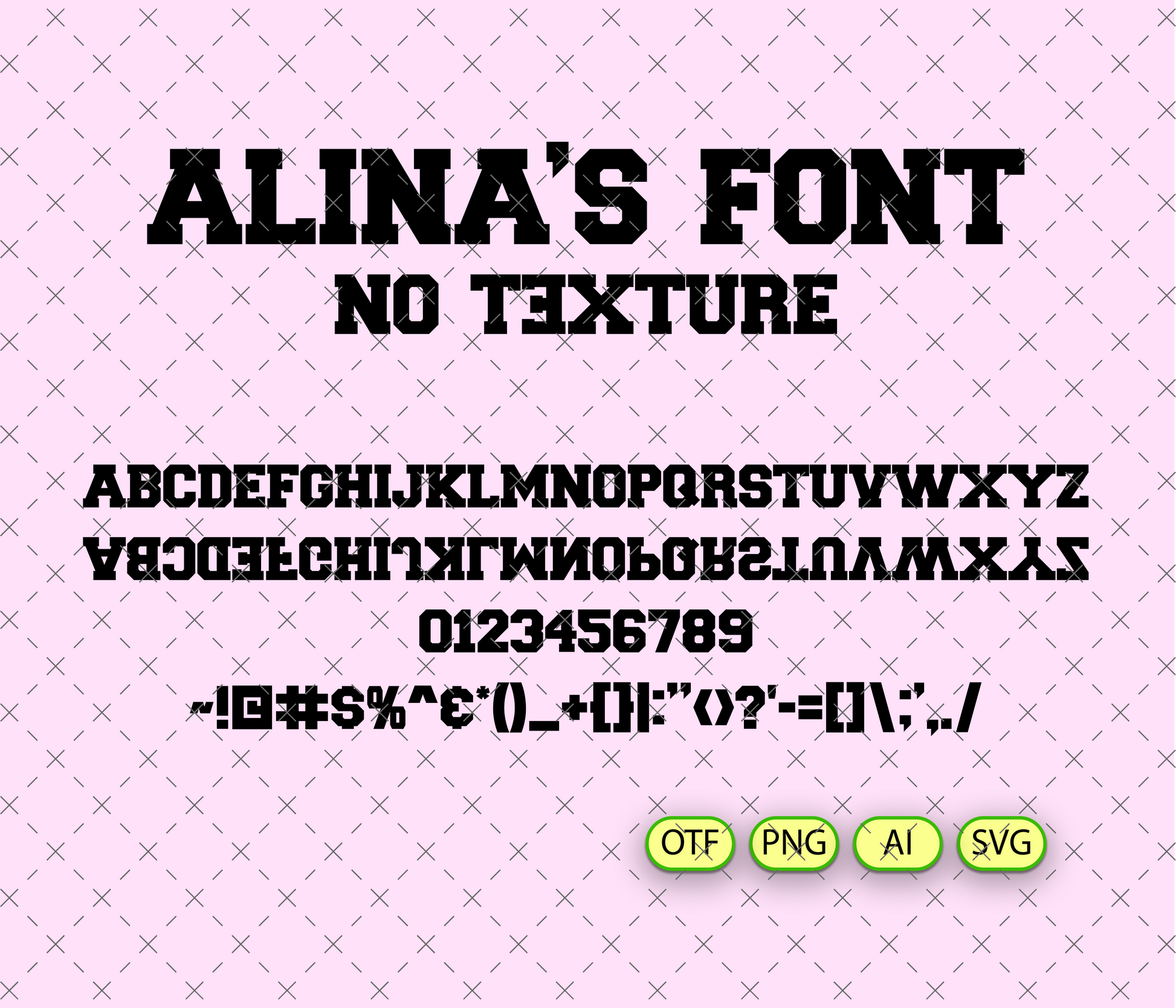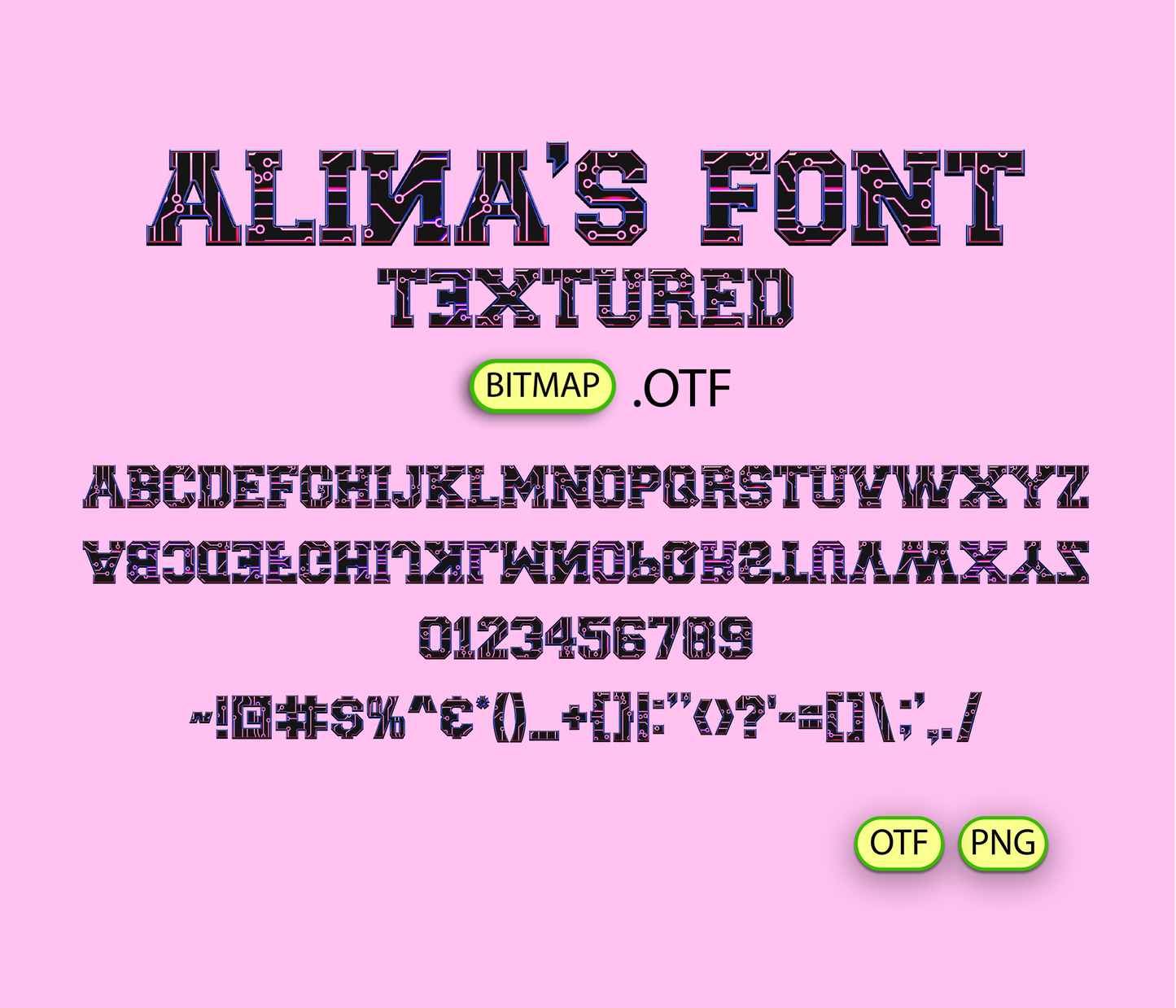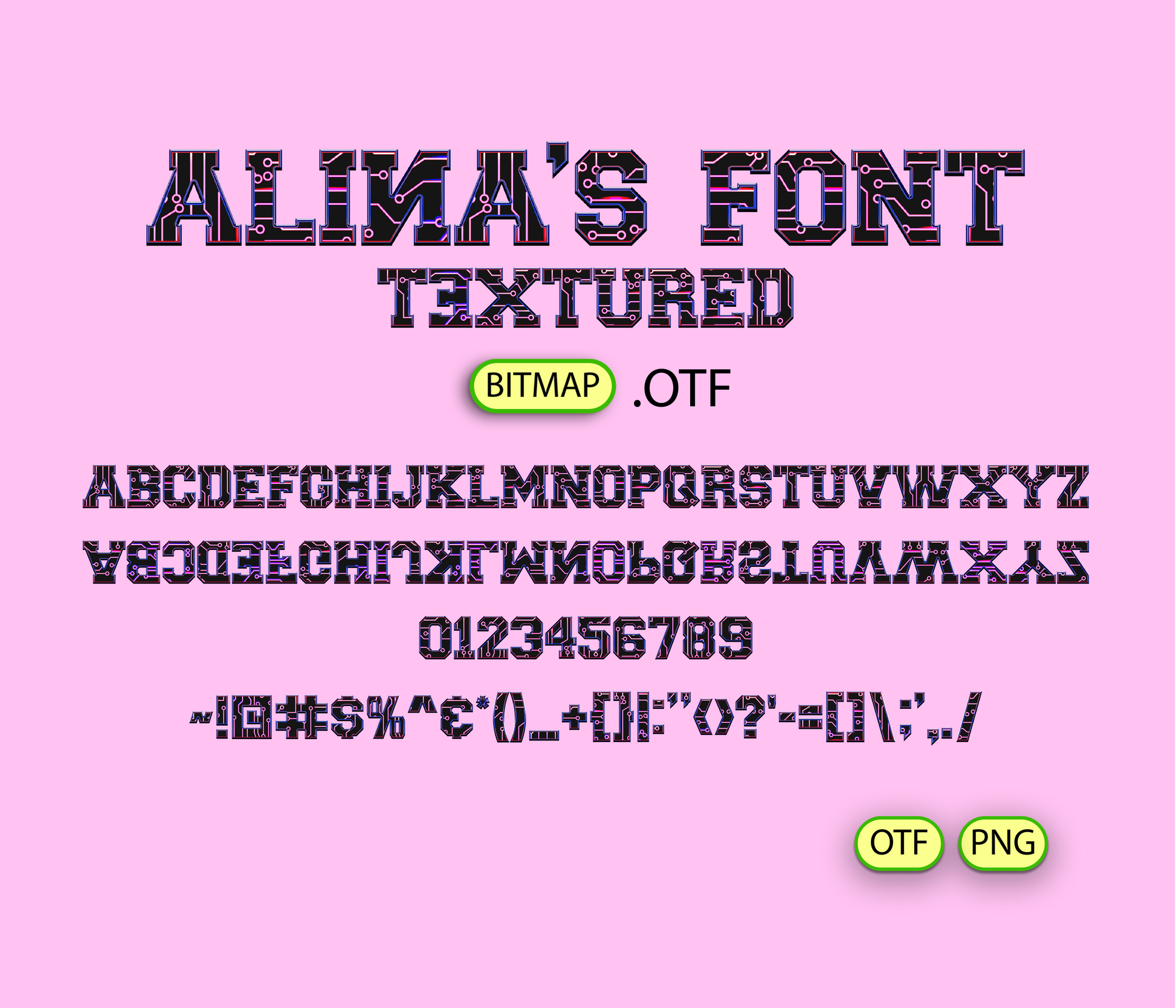
Reversed Gravity Font Textured
Step into the bewildering world of bottom-to-top layouts with our Reversed Gravity Font Textured, capturing the essence of ceiling-walking aesthetics and vertically-flipped compositions. Perfect for creative experimenters, festivity coordinators, digital producers, and design enthusiasts, this font brings the audacious, mind-bending spirit of rotated dimension tales to your projects. Create attention-grabbing invitations, branded merchandise, or online content with the mesmerizing appeal of turned-around perspective narratives.
Bold Typography for Unconventional Design & Innovative Projects
Our Reversed Gravity Font Textured features prominent, stylized letterforms with worn surface details reflecting the world of flipped arrangements and contradictory directional environments.
Our font pays tribute to the world of radical visual methodology and innovative aesthetic expression, empowering your projects with its audacious and mind-bending spirit. Whether crafting experimental materials, designing innovative products, or adding an unconventional touch to personal projects, this font communicates the spirited essence of orientation-transforming entertainment. Ready to inject ceiling-walking wonder into your creations? This font is your key to attention-grabbing, impactful design.